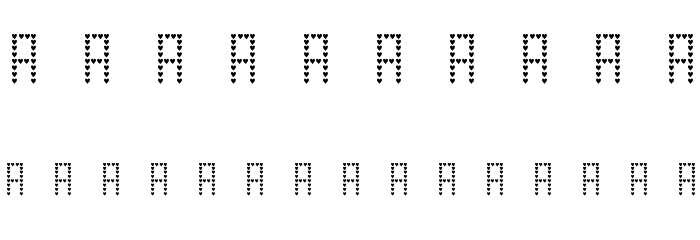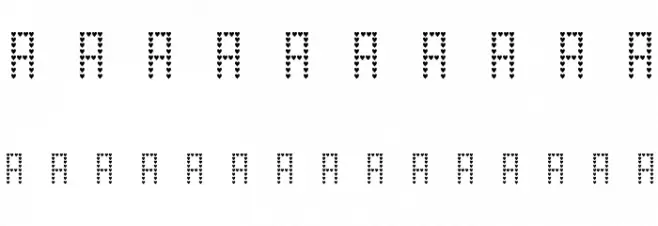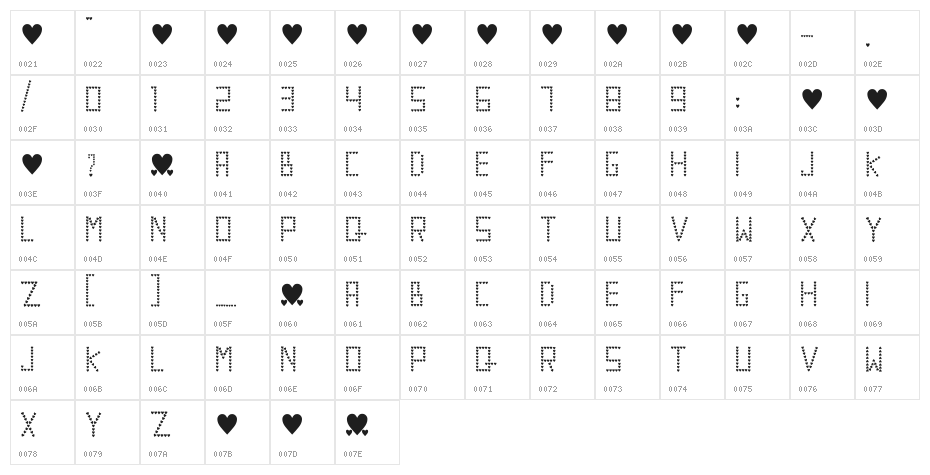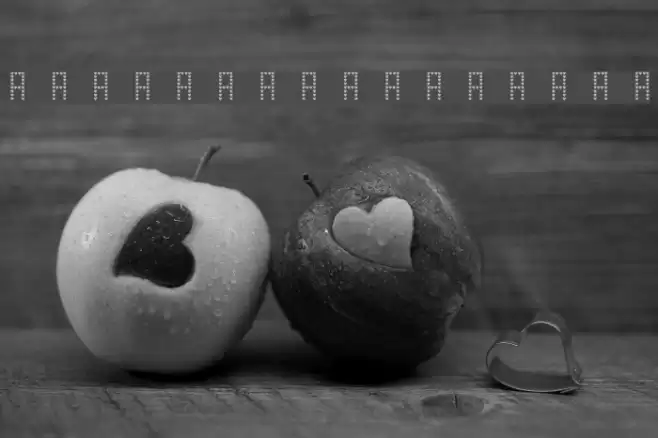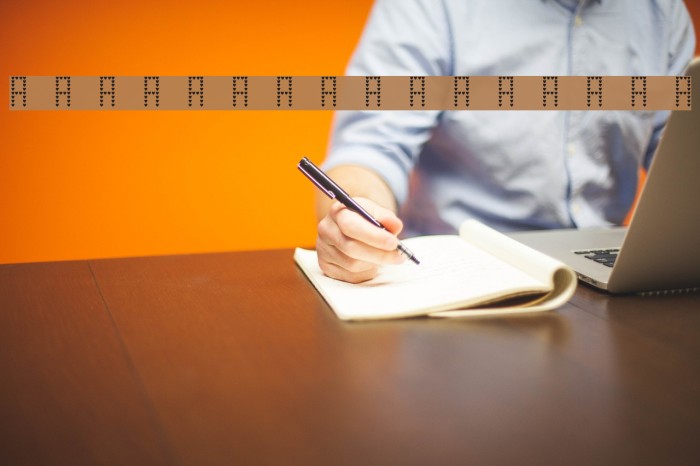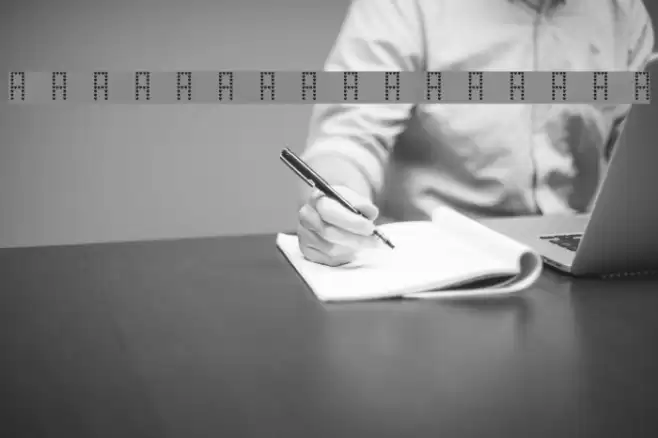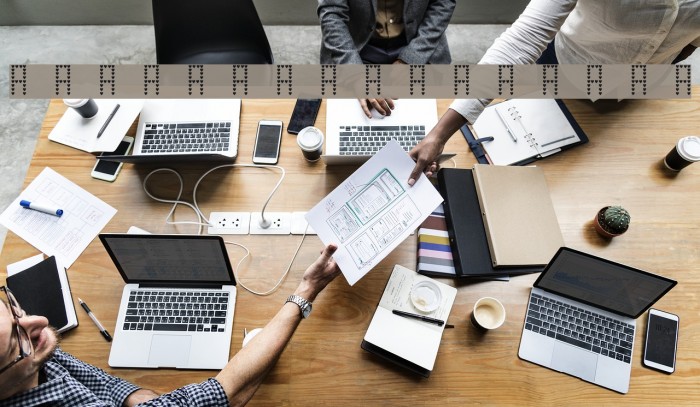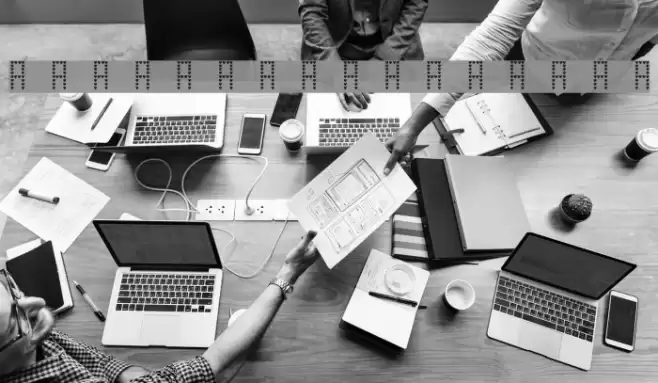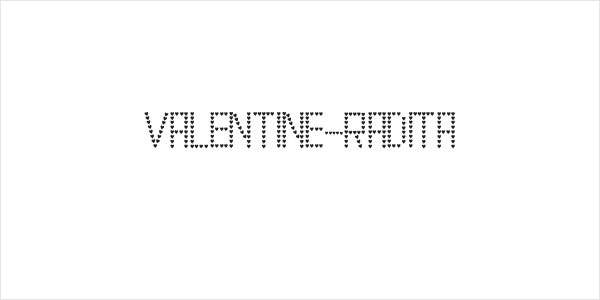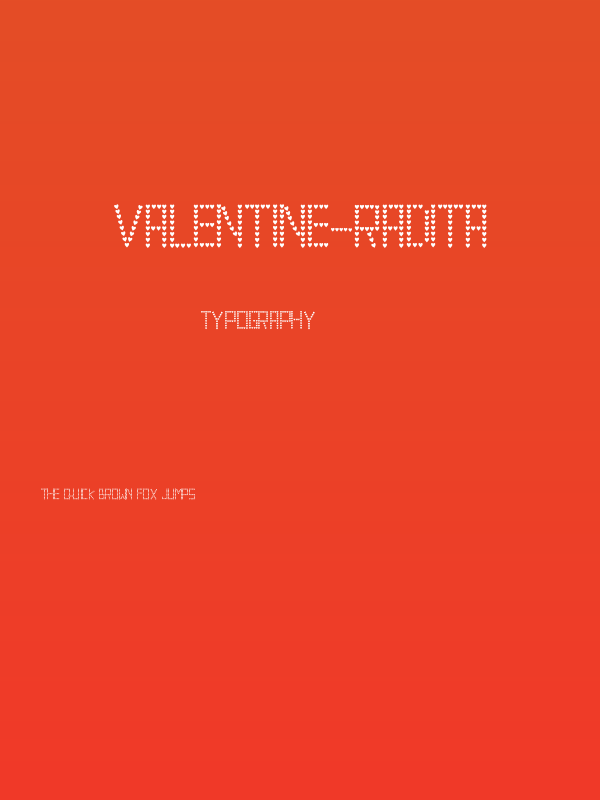
VALENTINE-RADITA Font
VALENTINE-RADITA Description
This design features a unique and decorative style composed entirely of heart shapes arranged to form the letter 'A'. The repetitive pattern creates a playful and romantic aesthetic, making it ideal for themed projects. The use of hearts as the primary design element gives it a whimsical and affectionate feel, perfect for occasions that celebrate love and joy. The consistent repetition of the letter 'A' across the image suggests a focus on a singular, bold statement, emphasizing the decorative nature of the design.
| Use Case | Logos, Decorative art, Event posters |
| Proposed Projects | Ideal for Valentine's Day cards, wedding invitations, romantic event posters, and decorative art pieces. |